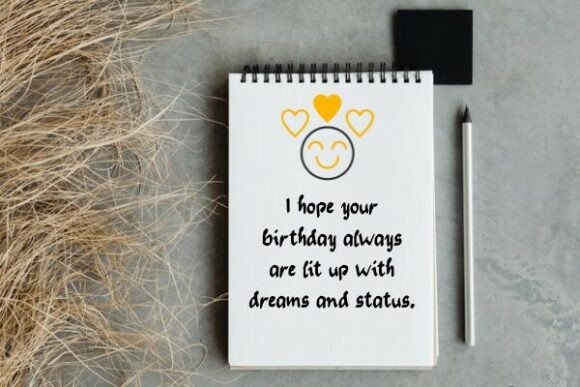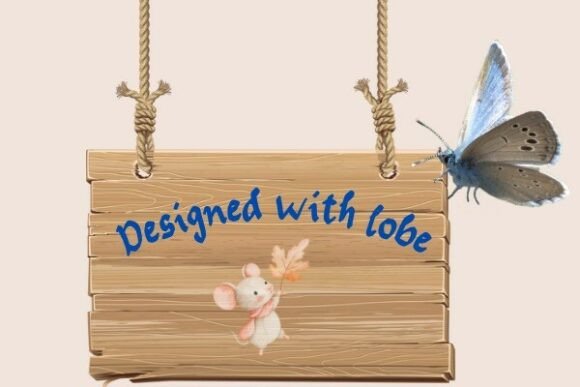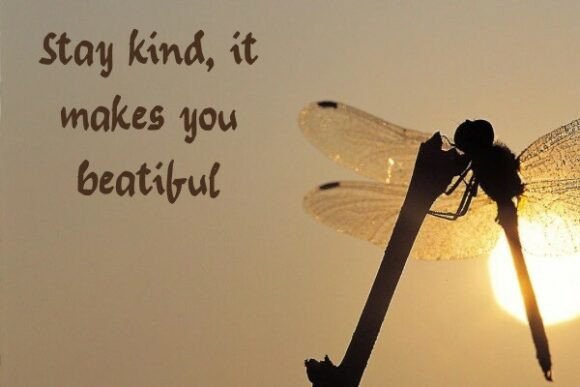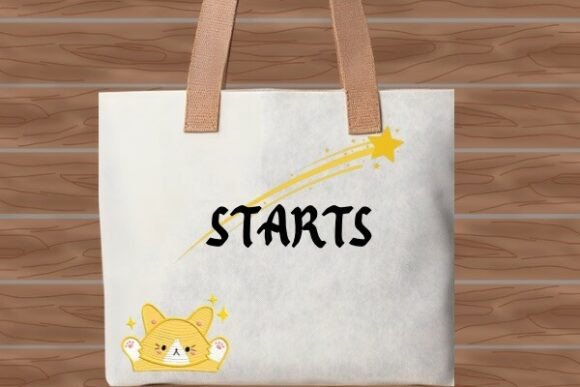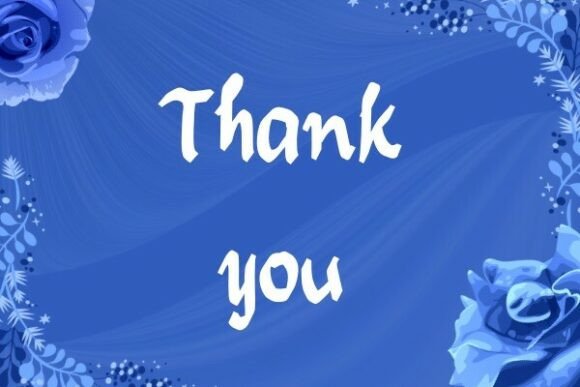
Cha Cha Font: Unleash Your Creativity with this Unique Handwritten Font
Are you a designer or crafter looking for a font that can add a personal touch to your creations? Look no further than the Cha Cha Font! Cha Cha adalah font tulisan tangan yang sangat unik dan menarik. This beautiful handwritten font is perfect for adding a touch of elegance and whimsy to your designs.
What is Cha Cha Font?
The Cha Cha Font is a unique and eye-catching handwritten font that is perfect for a variety of design projects. Its distinctive and flowing script makes it ideal for use in designs where you want to add a personal touch. Whether you’re creating a custom t-shirt, greeting card, invitation, or mug, the Cha Cha Font is sure to make your design stand out.
Uses for Cha Cha Font
So, what can you use the Cha Cha Font for? The possibilities are endless! Here are a few ideas to get you started:
- T-Shirt Design: Add a personal touch to your t-shirt designs with the Cha Cha Font. Its unique and flowing script makes it perfect for creating custom tees for special occasions or everyday wear.
- Greeting Cards: Create beautiful and unique greeting cards for birthdays, holidays, and other special occasions with the Cha Cha Font.
- Invitations: Make your invitations stand out with the Cha Cha Font. Its elegant and whimsical script is perfect for weddings, baby showers, and other special events.
- Mugs: Add a personal touch to your mug designs with the Cha Cha Font. Its flowing script makes it perfect for creating custom mugs for coffee, tea, or hot chocolate lovers.
- Mockups: Use the Cha Cha Font to create stunning mockups for your designs. Its unique and eye-catching script makes it perfect for showcasing your designs in a creative and visually appealing way.
Why Choose Cha Cha Font?
So, why choose the Cha Cha Font for your design projects? Here are just a few reasons:
- Unique and Eye-Catching: The Cha Cha Font is a truly unique and eye-catching font that will make your designs stand out from the crowd.
- Easy to Read: Despite its flowing script, the Cha Cha Font is easy to read, making it perfect for use in a variety of design projects.
- Versatile: The Cha Cha Font is versatile and can be used in a variety of design projects, from t-shirt designs to greeting cards and more.
- High-Quality: The Cha Cha Font is a high-quality font that is designed to produce crisp and clear results, even at small sizes.
Tips for Using Cha Cha Font
Here are a few tips for using the Cha Cha Font in your design projects:
- Use it Sparingly: While the Cha Cha Font is beautiful, it can be overwhelming if used too much. Use it sparingly to add a touch of elegance and whimsy to your designs.
- Pair it with Other Fonts: The Cha Cha Font pairs well with other fonts, so don’t be afraid to experiment with different font combinations.
- Experiment with Colors: The Cha Cha Font looks great in a variety of colors, so don’t be afraid to experiment with different color schemes.
In conclusion, the Cha Cha Font is a unique and eye-catching handwritten font that is perfect for designers and crafters looking to add a personal touch to their creations. Its flowing script and elegant style make it ideal for use in a variety of design projects, from t-shirt designs to greeting cards and more. With its high-quality design and versatility, the Cha Cha Font is sure to become a favorite in your design arsenal.